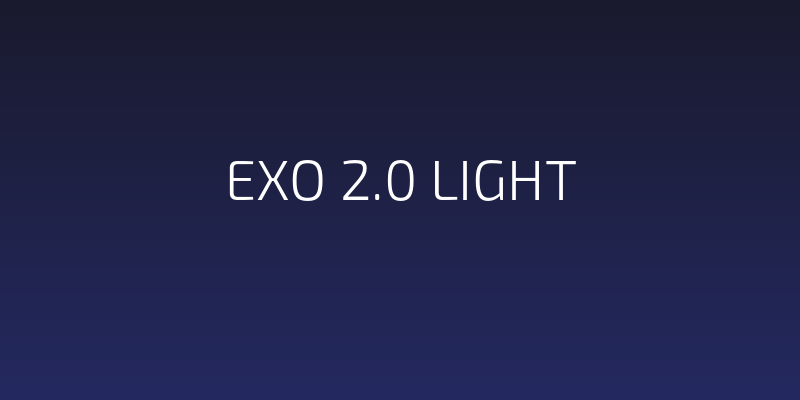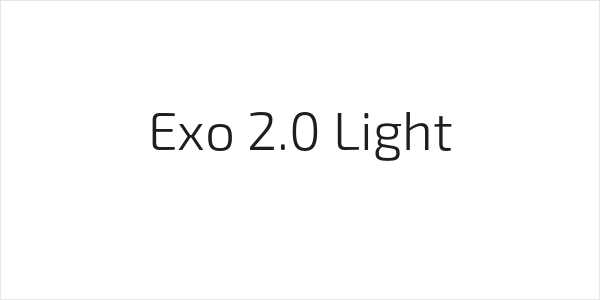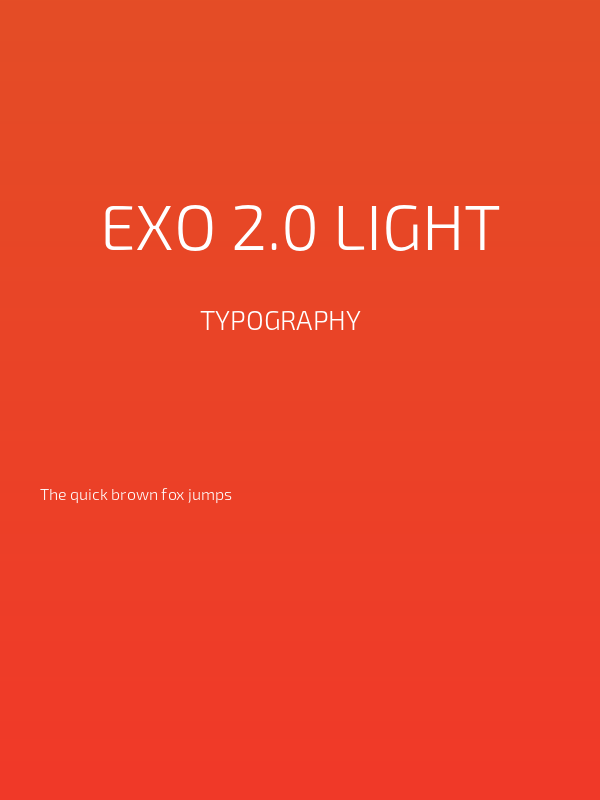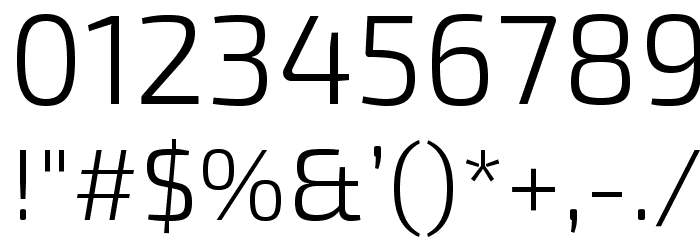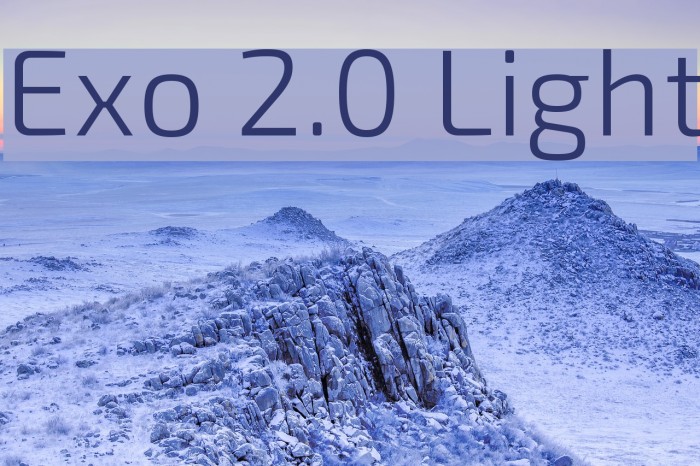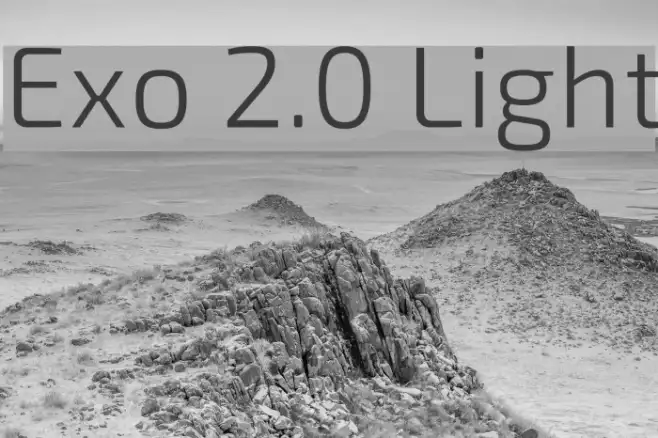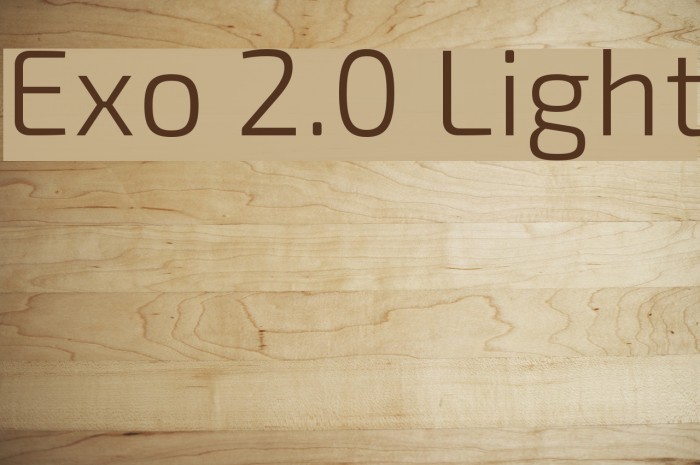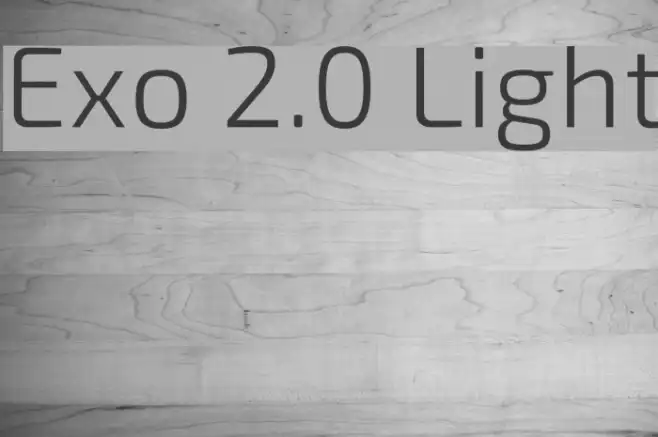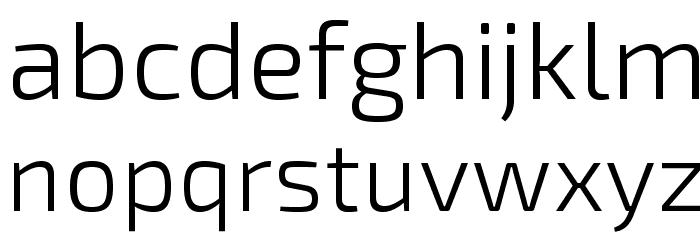
Exo 2.0 Light Font
Exo 2.0 Light Description
This font features a sleek and modern design with a geometric sans-serif style. The characters are clean and well-defined, offering a contemporary look that is both professional and approachable. The uppercase letters are slightly taller than the lowercase, providing a balanced and harmonious appearance. The numerals are consistent with the overall style, ensuring readability and uniformity. Special characters are distinct and integrate seamlessly with the rest of the font, making it versatile for various applications.
| Proposed Projects | Ideal for tech branding, modern web design, corporate presentations, and user interfaces. |